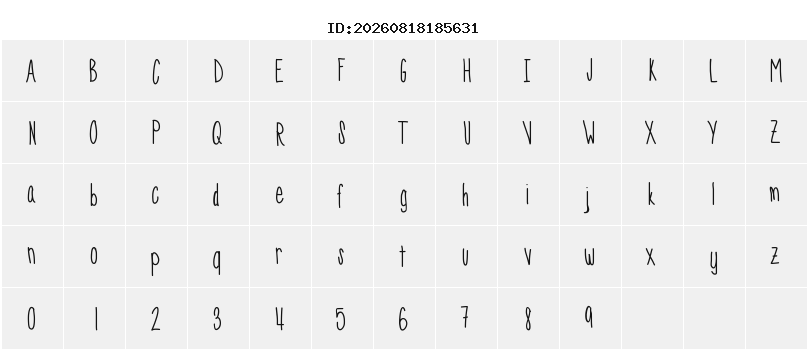
SkinnyNess Preview
• Font Name: SkinnyNess
• Full Font Name: SkinnyNess
• PostScript Name: SkinnyNess
• Character Count: 71
About SkinnyNess.ttf
SkinnyNess.ttf is a modern, elegant sans-serif font designed for ultimate readability and visual harmony. Perfect for branding, headlines, web design, and print materials.